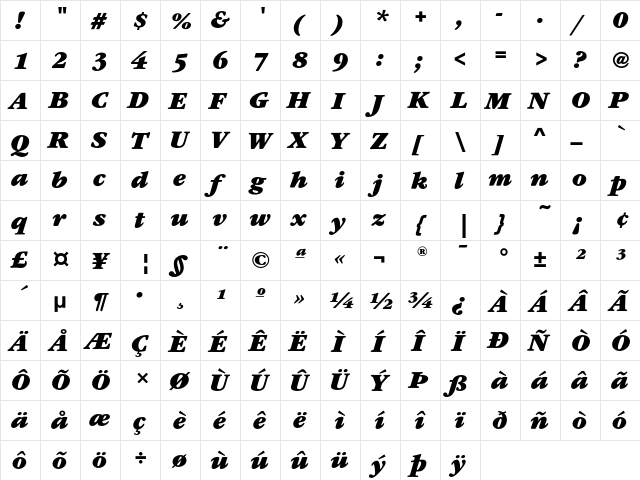
GaramondEF UltraItalic Font Preview
GaramondEF UltraItalic
GaramondEF UltraItalic Font Details
Design Context for GaramondEF Typeface
GaramondEF takes a measured approach to typography — its balanced proportions and neutral character make it a reliable workhorse for both digital and print work. The dynamic lean of this cut emphasises speed and emphasis in any layout.
Pro Tip: Try GaramondEF for annotation and caption copy alongside an upright companion — the contrast in angle creates a dynamic but ordered typographic system.